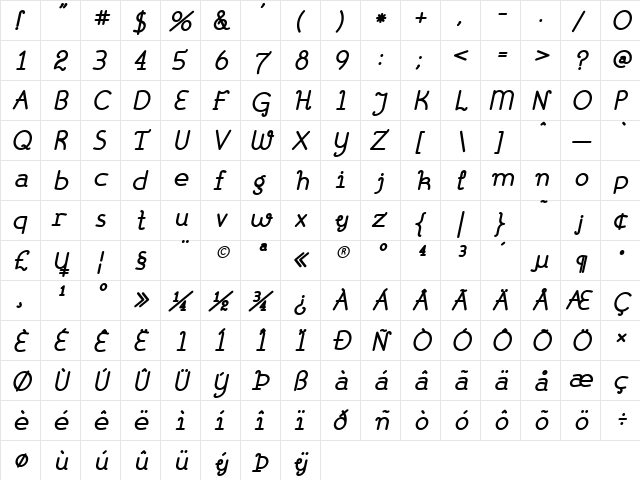
Book& Bold Italic
| Foundry | Max Kisman |
| Designer | Max Kisman |
Design Context for Book& Typeface
Book& is a composed and adaptable typeface that performs quietly and consistently across a wide range of design contexts. The dynamic lean of this cut emphasises speed and emphasis in any layout. The heavy weight commands attention and anchors typographic hierarchies.